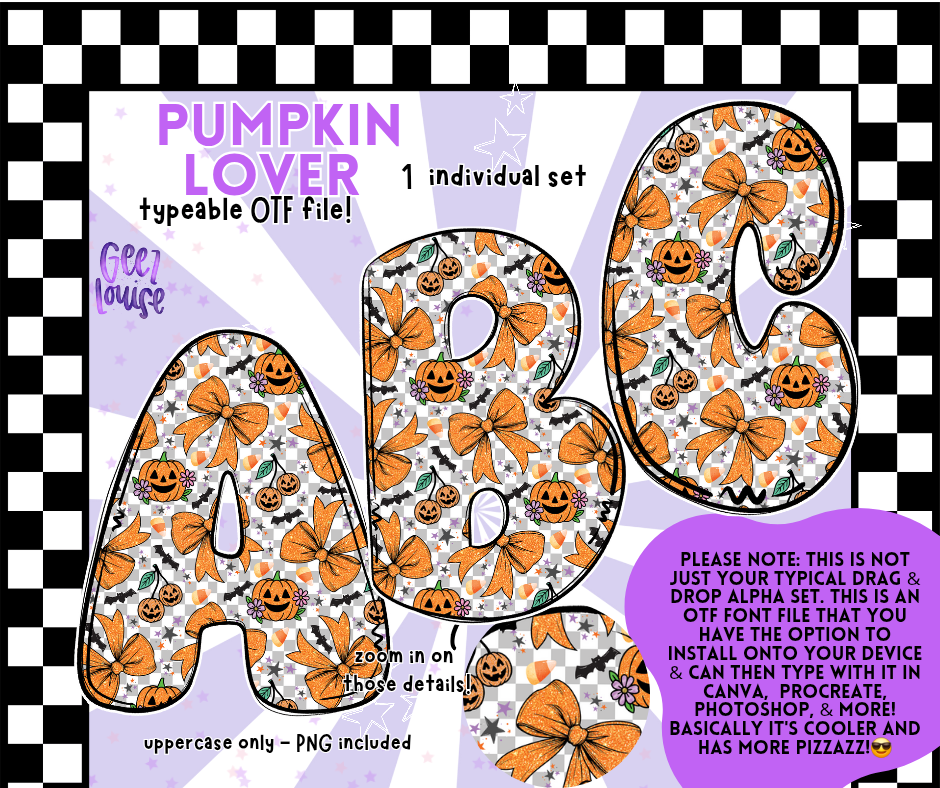
Pumpkin Lover Bubble - TYPEABLE OTF Font - Alpha Set - Digital Download- PNG
🎃 Pumpkin Lover – Typeable OTF Font + PNGs
Sweet, spooky, and unapologetically festive—meet Pumpkin Lover, your new Halloween go-to. This uppercase-only font is dripping in candy corn, bows, and pumpkin magic, perfect for creators who want their designs to scream cute chaos.
• Uppercase letters only
✨ Why It Slaps:
This isn’t your basic alpha set. Pumpkin Lover is a full-blown font file, meaning you can type with it like a regular font—but it’s anything but regular. Every letter is a mini masterpiece, bursting with Halloween flair and playful energy.